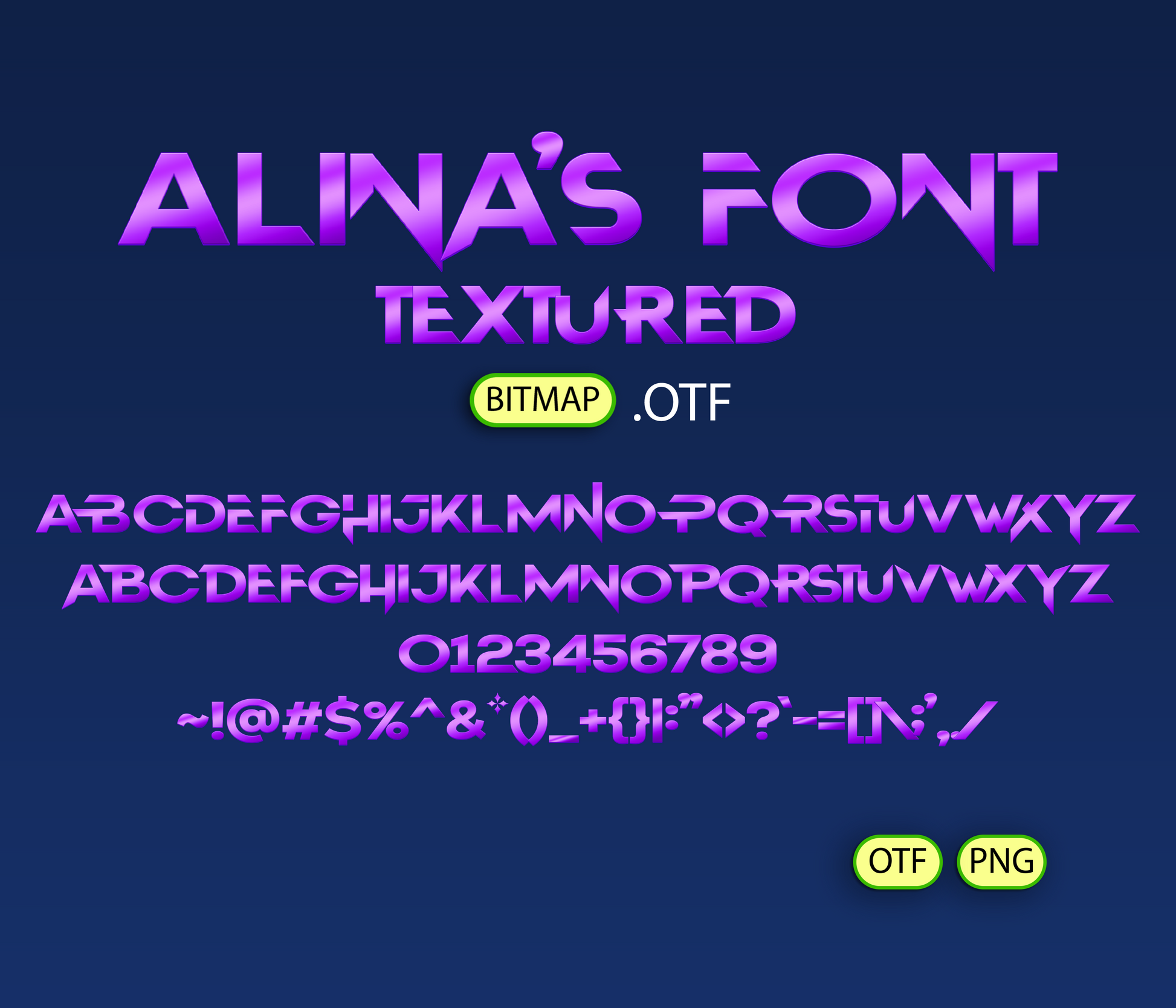
Cyber Gothic Font Textured
Cyber Huntrix Font Digital Matrix Combat
Step into the intense world of high-tech cyber warfare with our Cyber Huntrix font, capturing the essence of digital reality battles and futuristic combat simulations. Perfect for sci-fi gaming events, cyberpunk themed parties, tech designers, and creative professionals, this font brings the sleek, digital energy of virtual reality combat to your projects. Create striking gaming invitations, tech-themed merchandise, or digital content with the bold, futuristic spirit of cyber warriors navigating digital realms.
Our Cyber Huntrix font features angular, geometric letterforms with digital glitch effects reflecting the high-tech aesthetic of virtual reality combat scenarios. The characters blend futuristic typography with cybernetic elements, creating perfect fusion of digital warfare and matrix-style design.
1. Gaming Events: Create attention-grabbing invites, posters, and banners for LAN parties, VR gaming nights, and cyberpunk themed gatherings
2. Sci-Fi Design: Perfect for book covers, movie promotions, and tech-themed party accessories that capture digital combat intensity
3. Digital Media: Enhance websites, blogs, and social media with futuristic headers and graphics that express cyber warfare and virtual reality
4. Entertainment Content: Add authentic character to gaming materials, tech designs, and promotional materials for digital events
5. Personal Projects: Bring cyber combat edge to scrapbooking, DIY crafts, and home decor inspired by the aesthetics of digital warfare